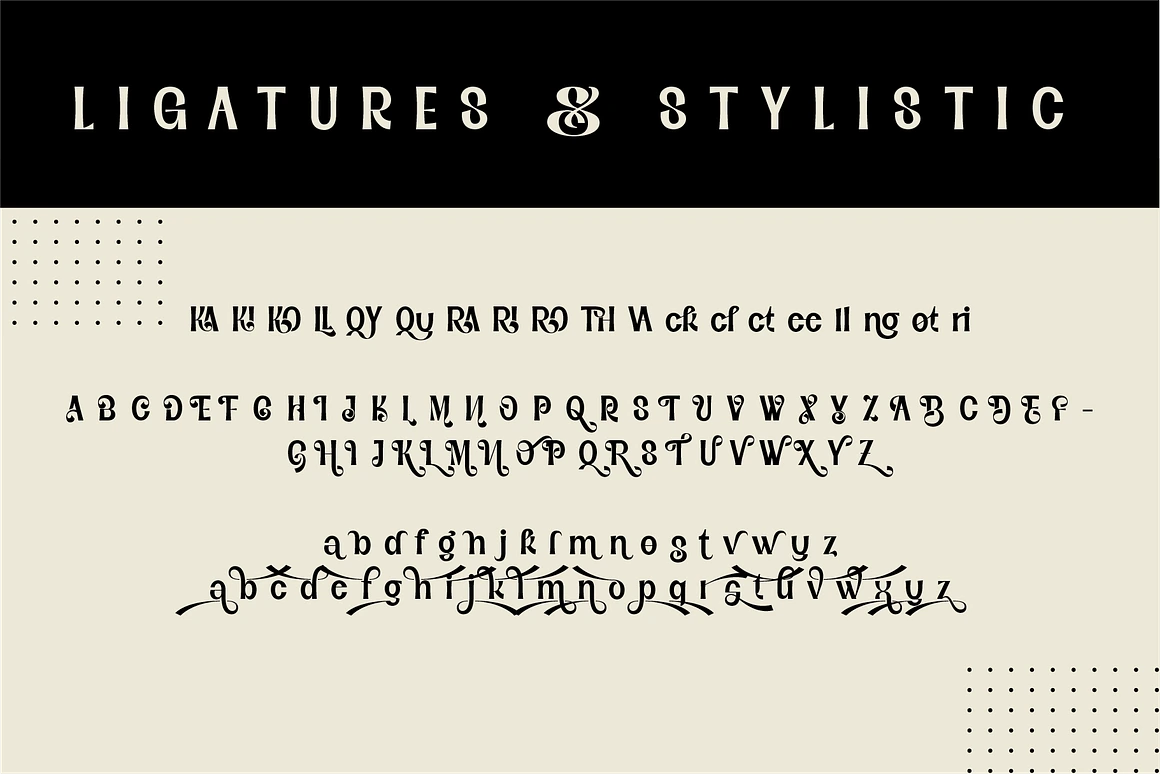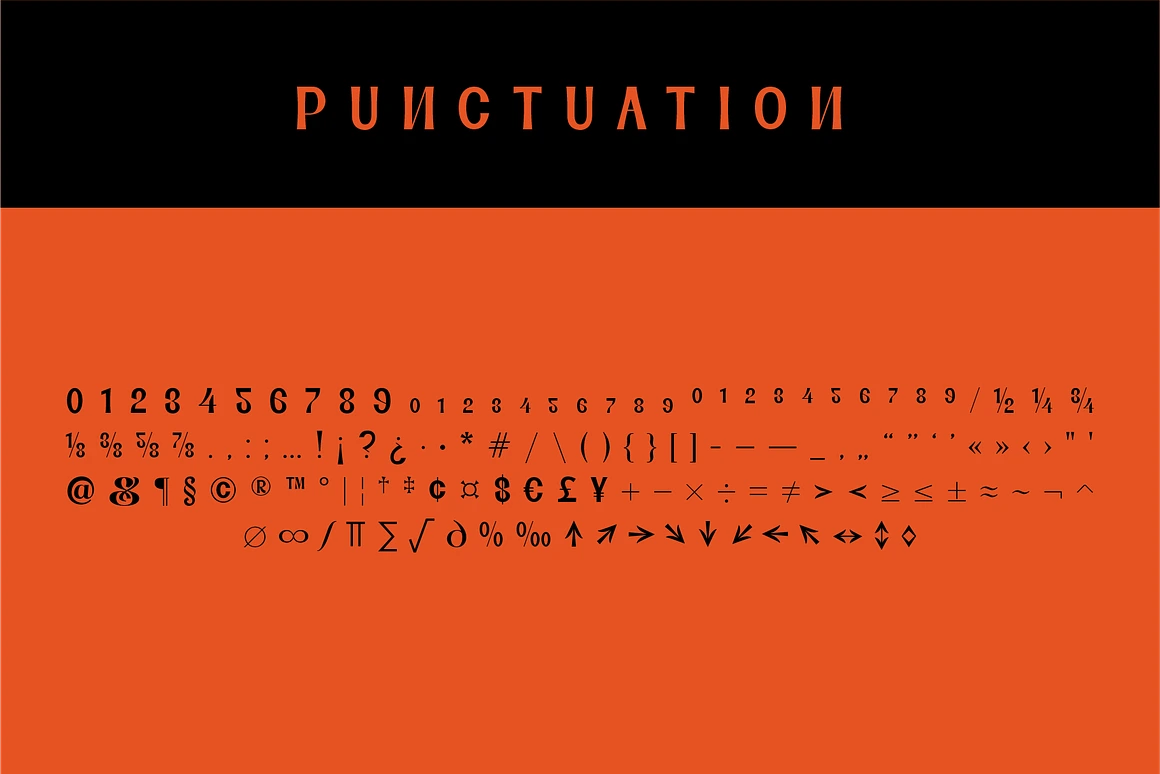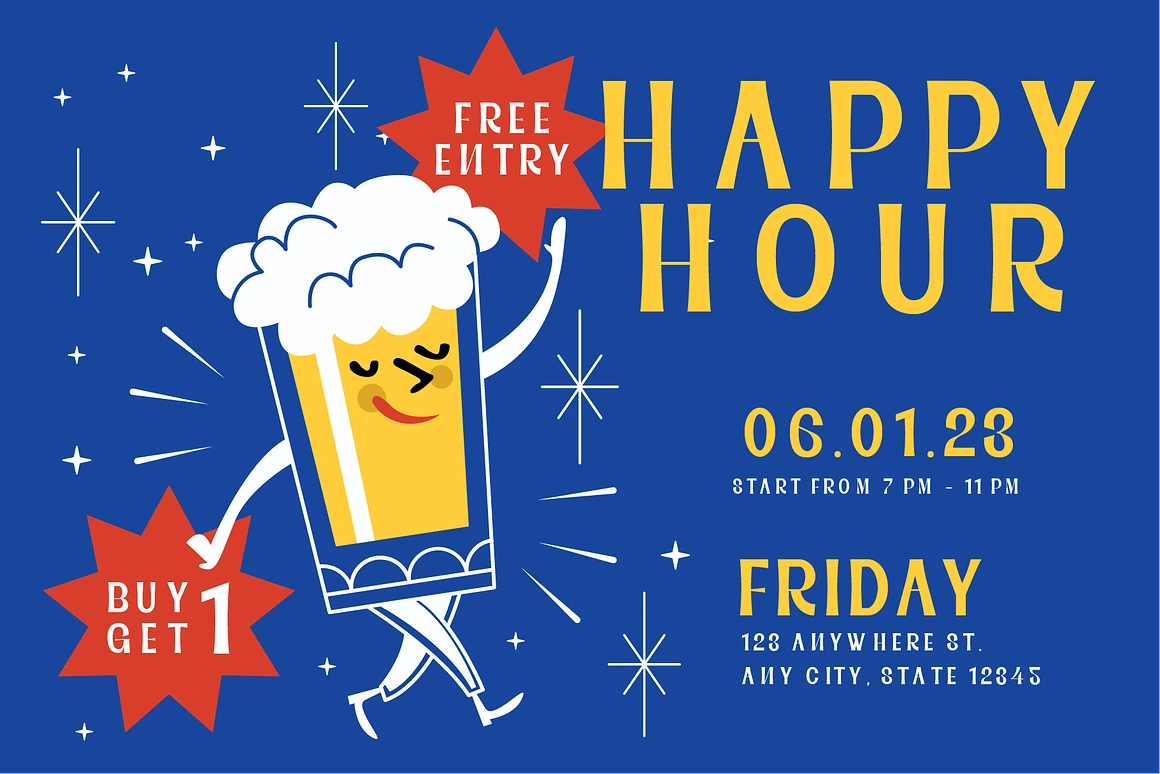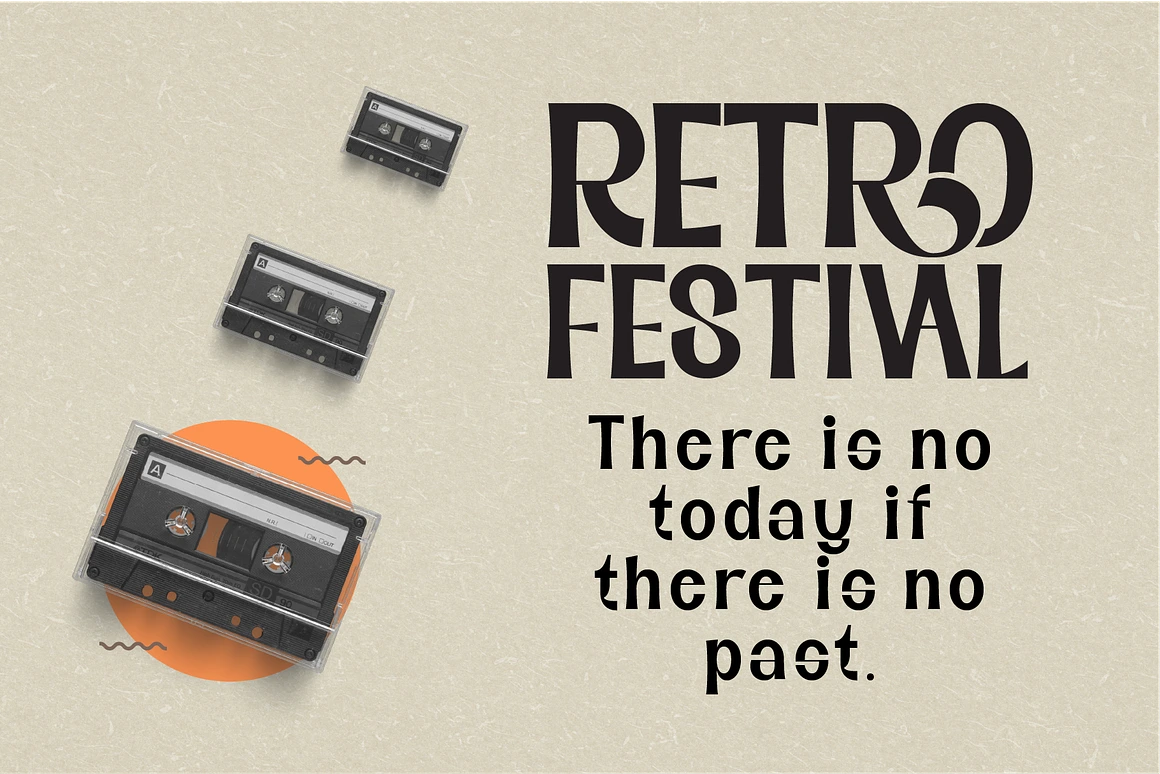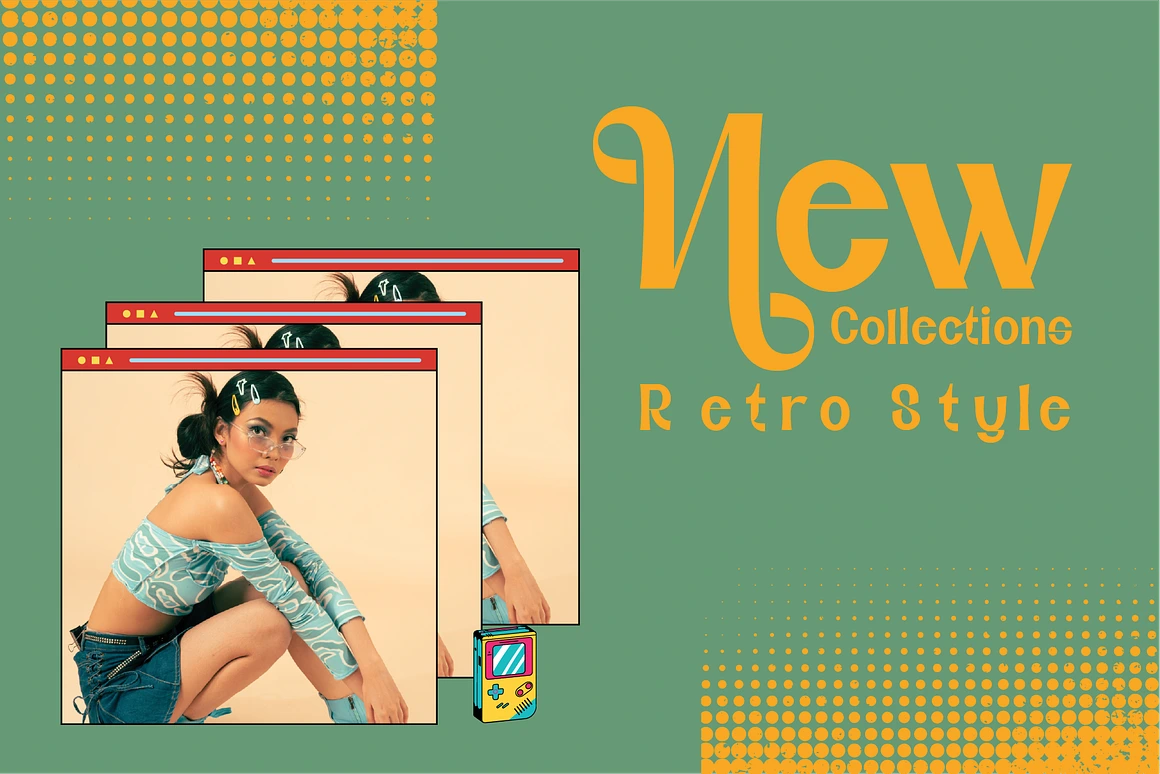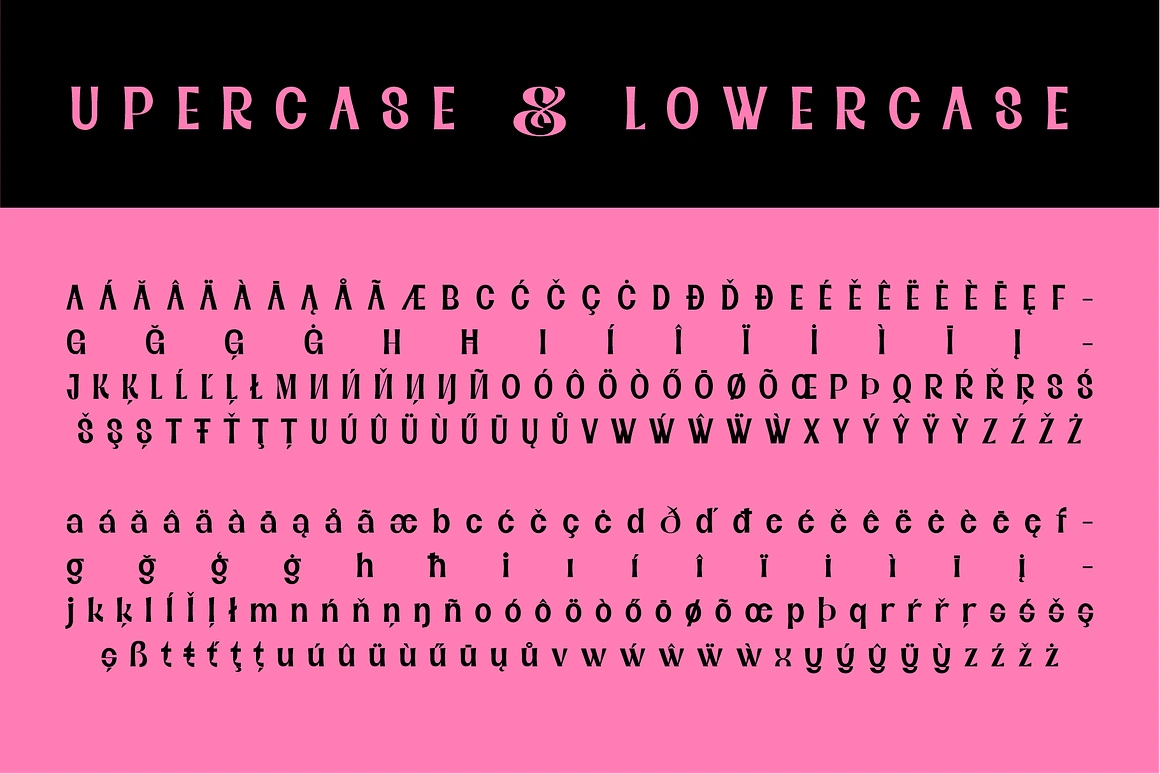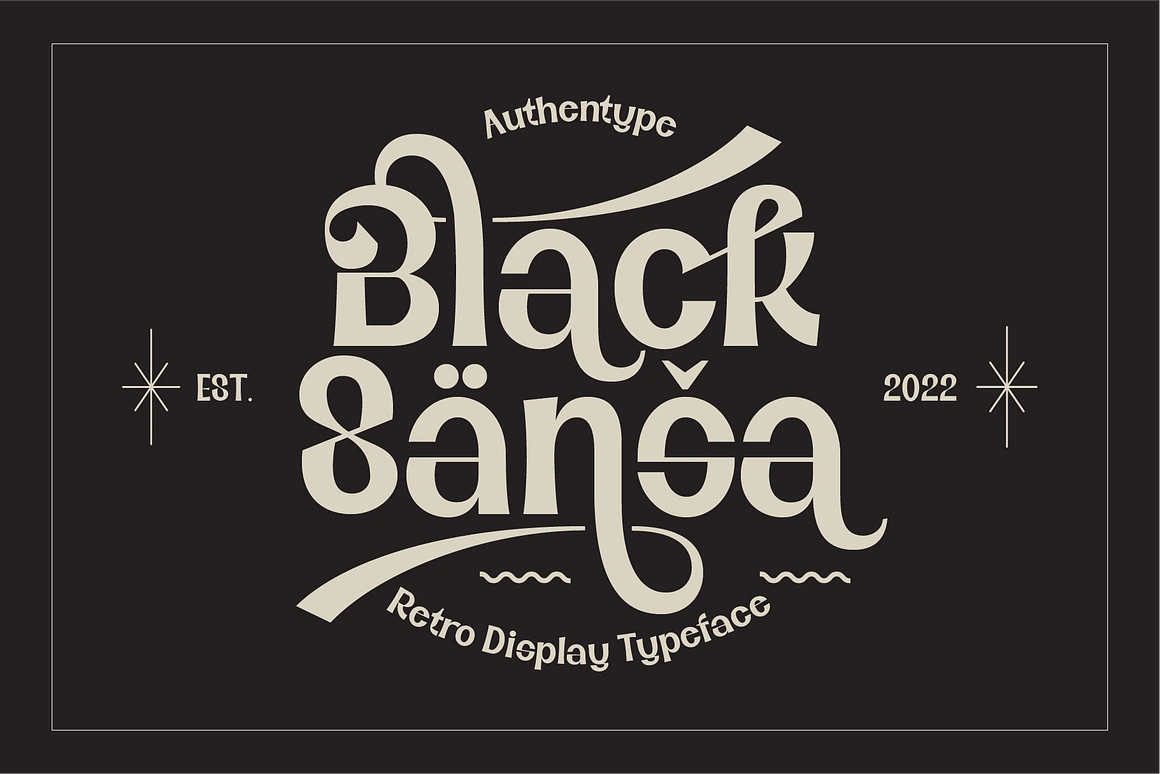
Black Sansa - Retro Display Font
Black Sansa is a bold retro display font featuring a complete set of uppercase and lowercase letters, numbers, punctuation, multilingual characters, stylistic sets, and ligatures.
Black Sansa is a bold retro display font featuring a complete set of uppercase and lowercase letters, numbers, punctuation, multilingual characters, stylistic sets, and ligatures. Its nostalgic yet retro display font design makes it perfect for retro posters, magazines, vintage branding, packaging, and editorial layouts.
Features:
✔ Complete Character Set: Uppercase & lowercase letters
✔ Numbers & Punctuation
✔ Stylistic Sets & Ligatures
✔ Multilingual Support: ä ö ü Ä Ö Ü ß ¿ ¡